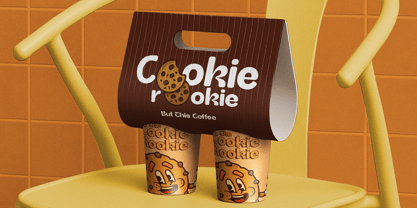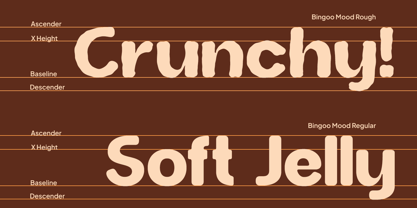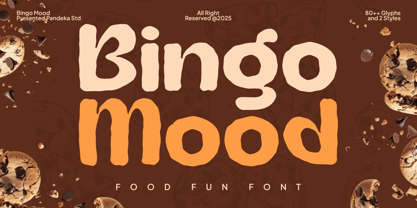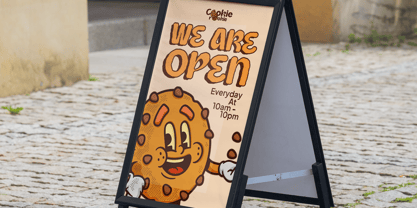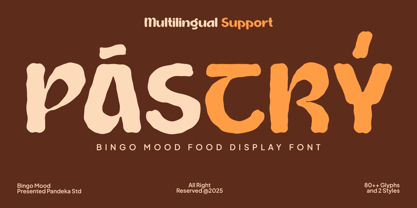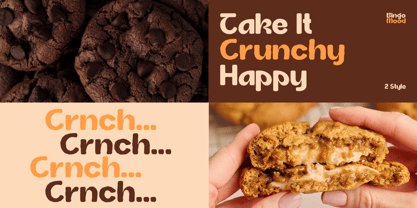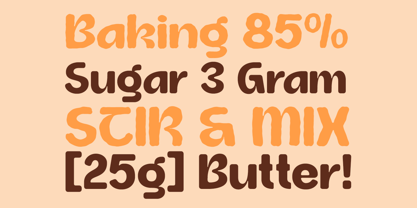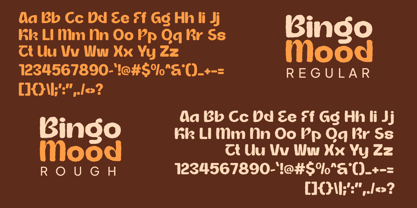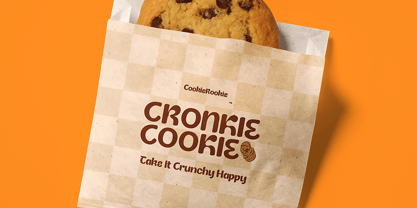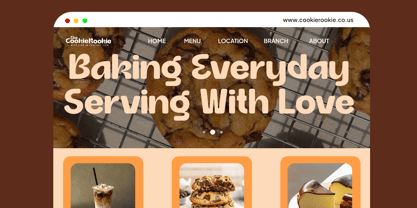
Bingo Mood
by Pandeka Studio
The Bingo Mood Font Family was designed by Sagara Nararya and published by Pandeka Studio. Bingo Mood contains 2 styles and family package options.
Bingo Mood is a playful and tasty display font that brings warmth, happiness, and fun to your food-themed designs. Inspired by the soft and crunchy textures of cookies and bakery goods, this typeface is perfect for packaging, cafe branding, social media posts, and fun product logos. It comes in 2 styles: Regular and Rough, giving you flexibility to mix smooth and textured looks for extra flavor. Whether you’re designing for desserts, bakeries, or cozy coffee shops, Bingo Mood adds a delightful personality that makes your design stand out. This font includes uppercase, lowercase, numbers, punctuation, and multilingual support — making it ready for global creative projects. What’s Included: Main Files formats 2 Style: Regular and Rough Full Character Set: Uppercase, lowercase, numbers, symbols, and punctuation Easy to Use: Works on both PC & Mac Compatible with Adobe Illustrator, Photoshop, Microsoft Word, Canva, and more PUA Encoded: Fully accessible without additional software Language Support: Danish, English, Estonian, Filipino, Finnish, French, Friulian, Galician, German, Gusii, Indonesian, Irish, Italian, Luxembourgish, Norwegian Bokmål, Norwegian Nynorsk, Nyankole, Oromo, Portuguese, Romansh, Rombo, Spanish, Swedish, Swiss-German, Uzbek (Latin) Food Fun Font Playful Typography Cheerful Lettering Tasty Design Colorful Style Friendly Aesthetic Unique Typeface Thank you and happy designing! Pandeka Studio